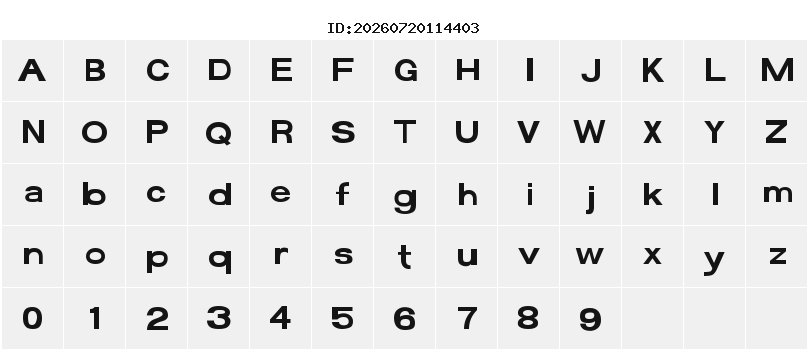
FunZone Three Preview
• Font Name: FunZone Three
About FunZone Three.ttf
FunZone Three.ttf is a modern, elegant sans-serif font designed for ultimate readability and visual harmony. Perfect for branding, headlines, web design, and print materials.